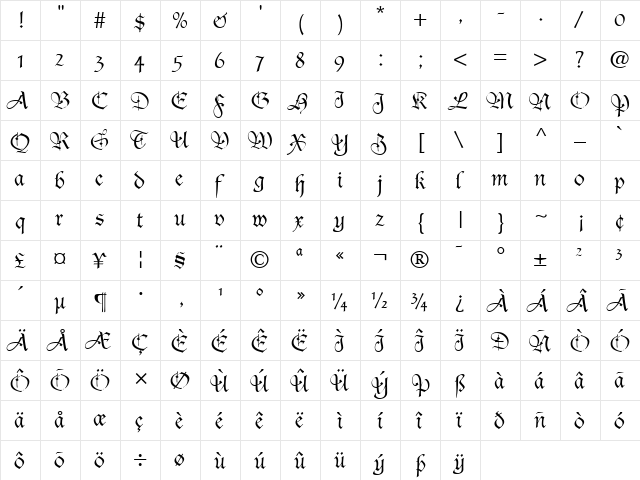
Duc De Berry Regular
Design Context for Duc De Berry Typeface
Duc De Berry is a composed and adaptable typeface that performs quietly and consistently across a wide range of design contexts.